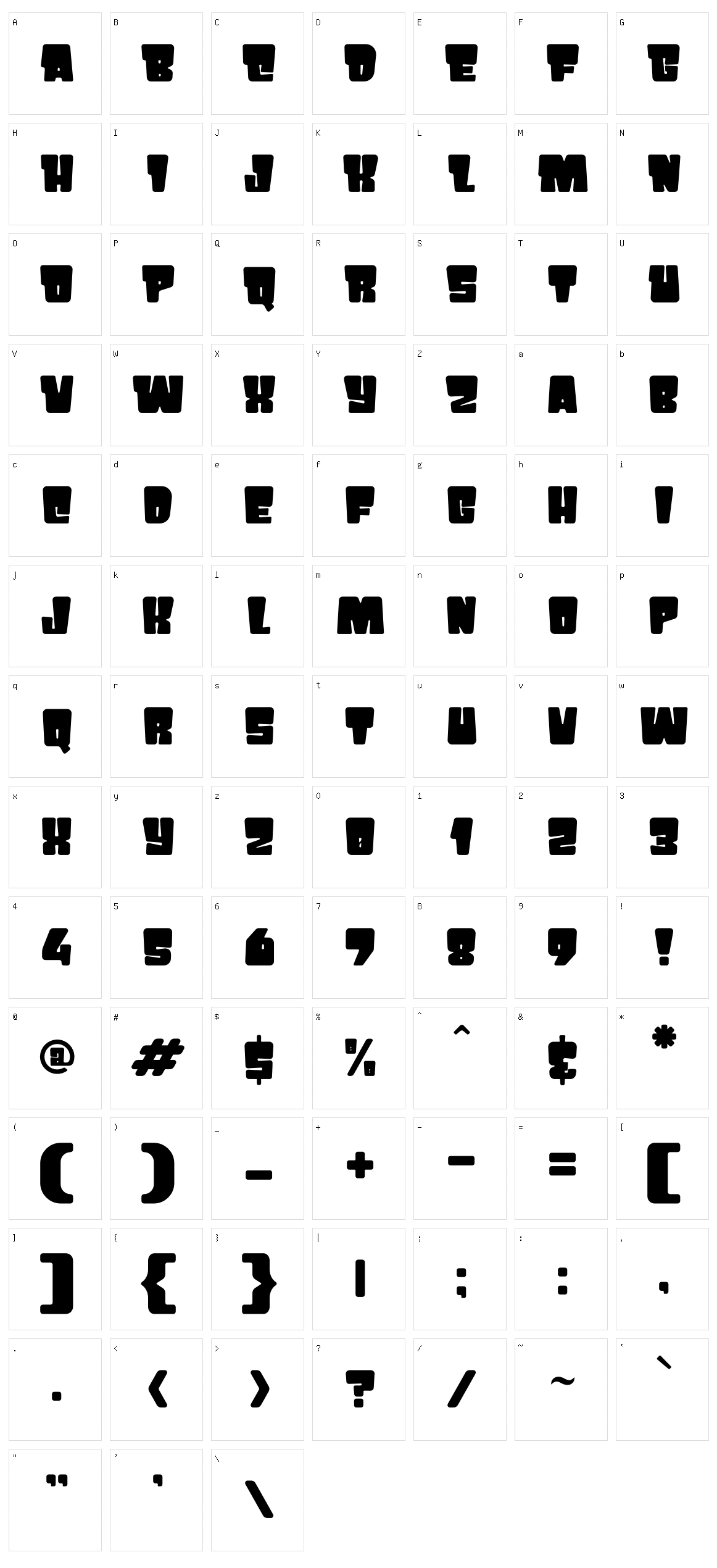
The free font Priko Star is carefully designed by Storytype Studio, showcasing a thoughtful balance of creativity and usability and falls under the Groovy font style. When you download the ZIP file, it contains only 20.39 KB of font files, making it lightweight and quick to download. Please review the license details below to understand permitted usage and distribution rights. If license information is not available, we recommend using this font for personal projects only or contacting the author directly for commercial usage permissions.